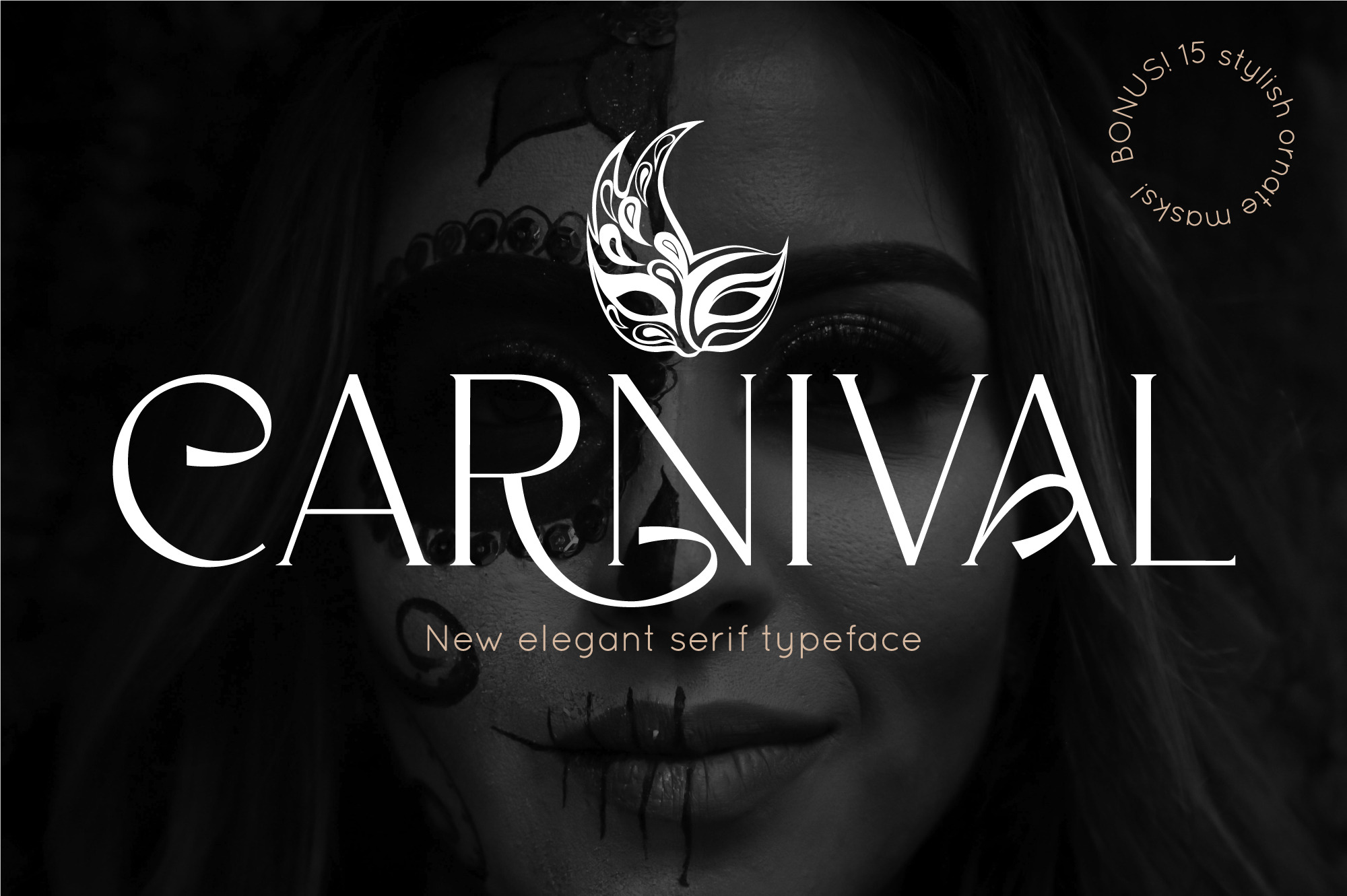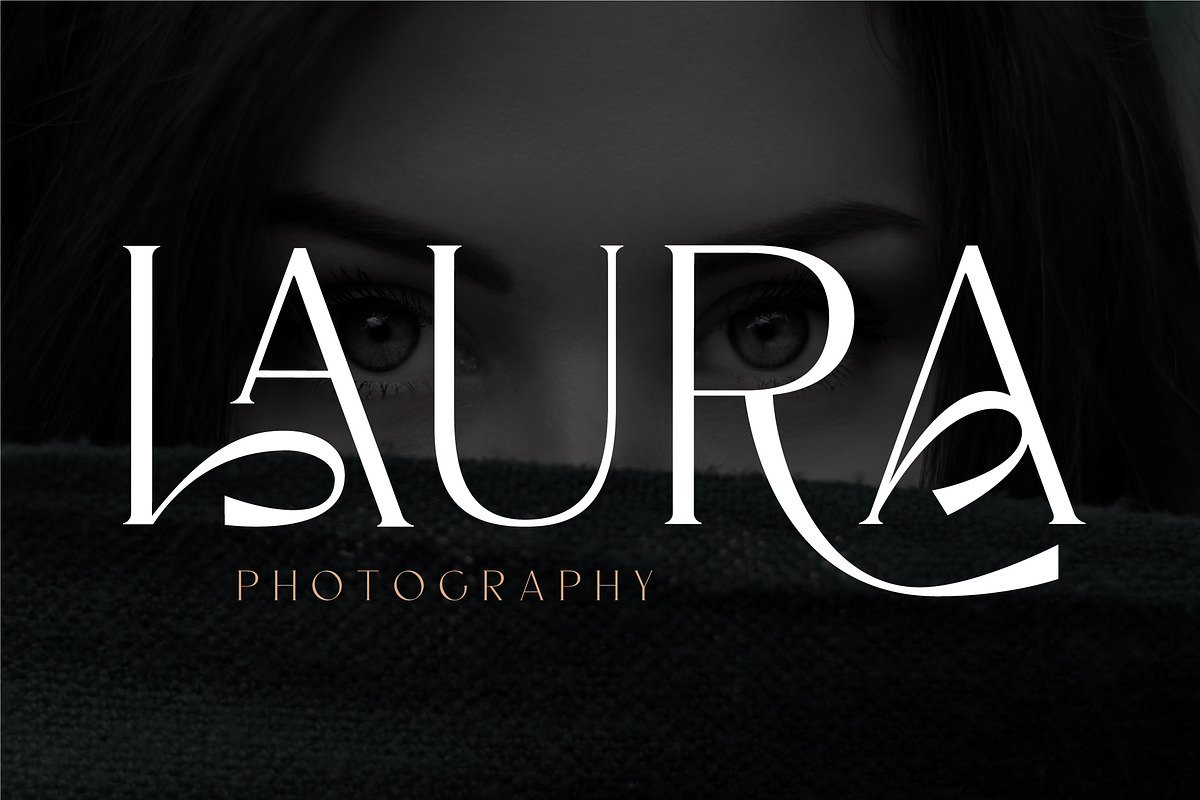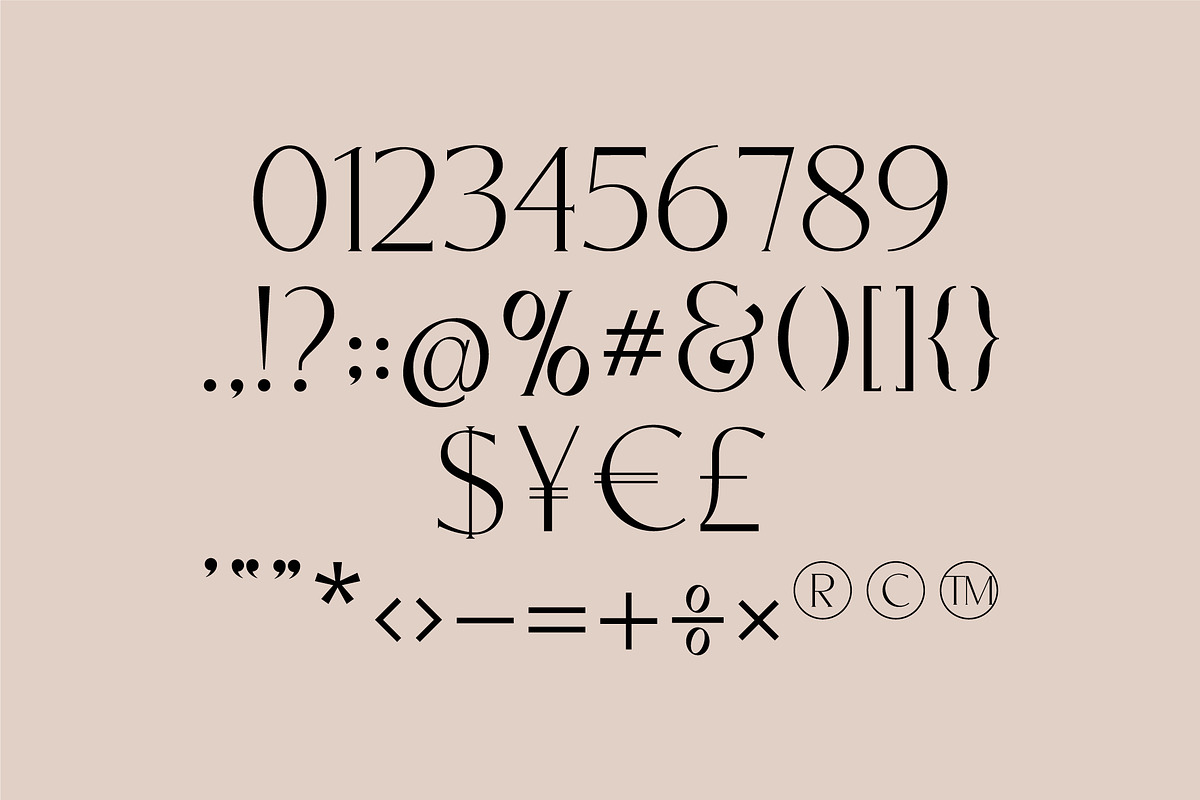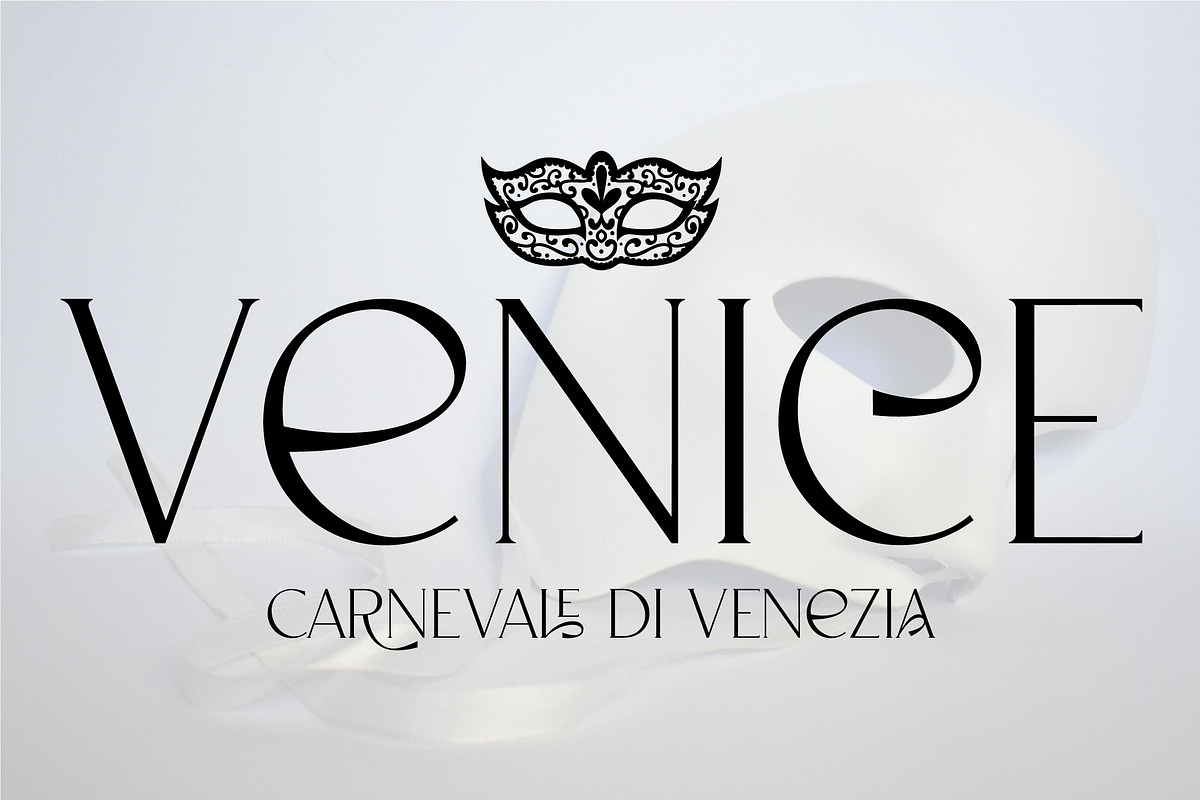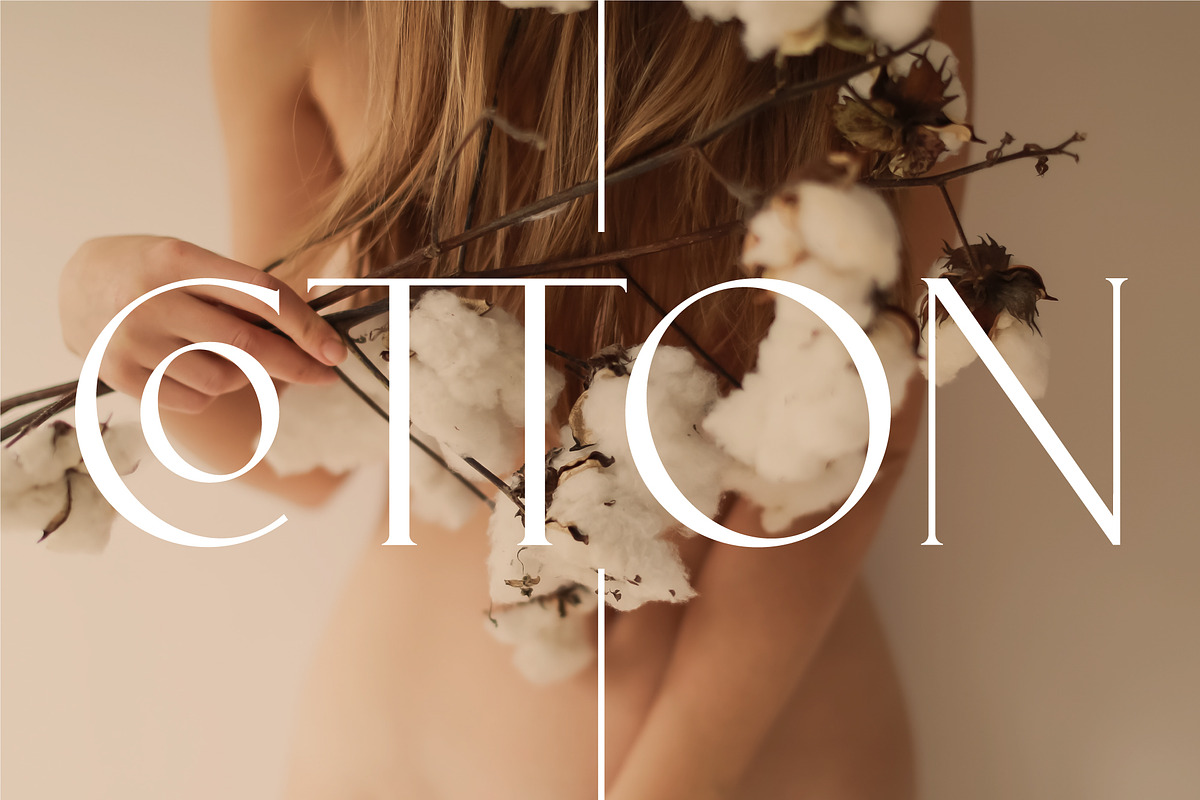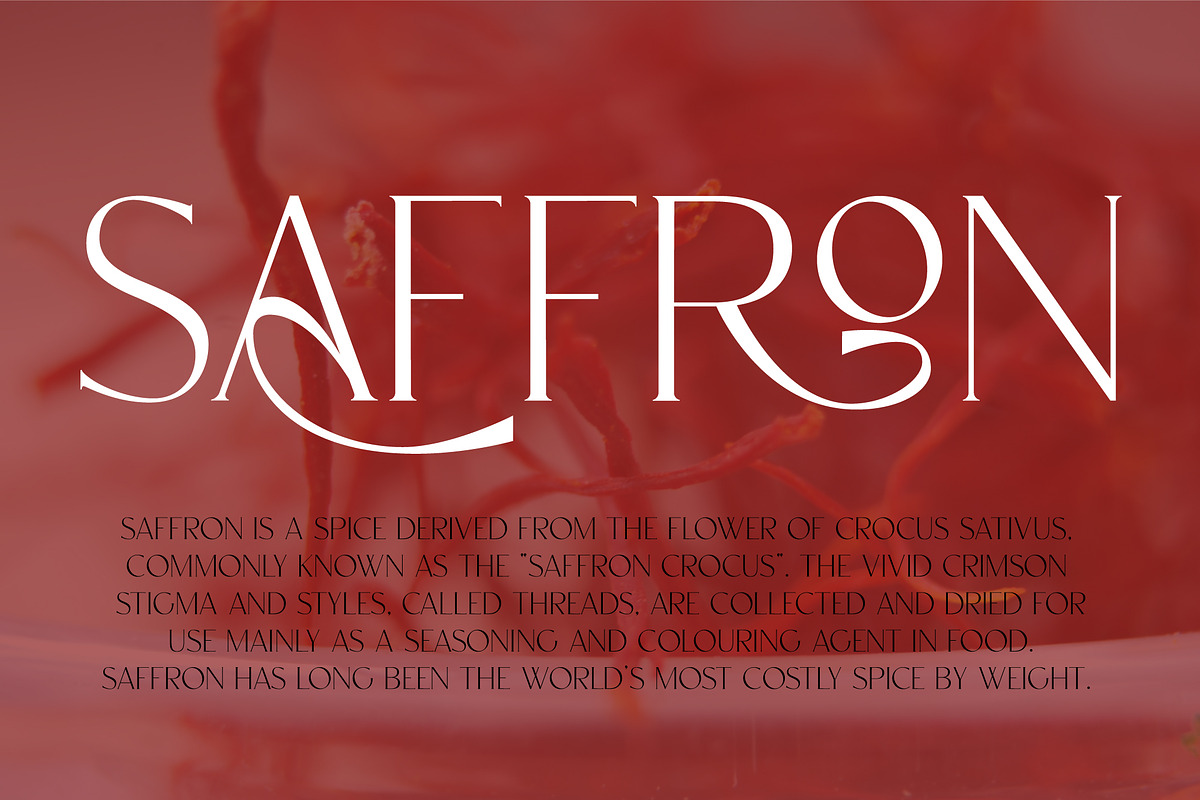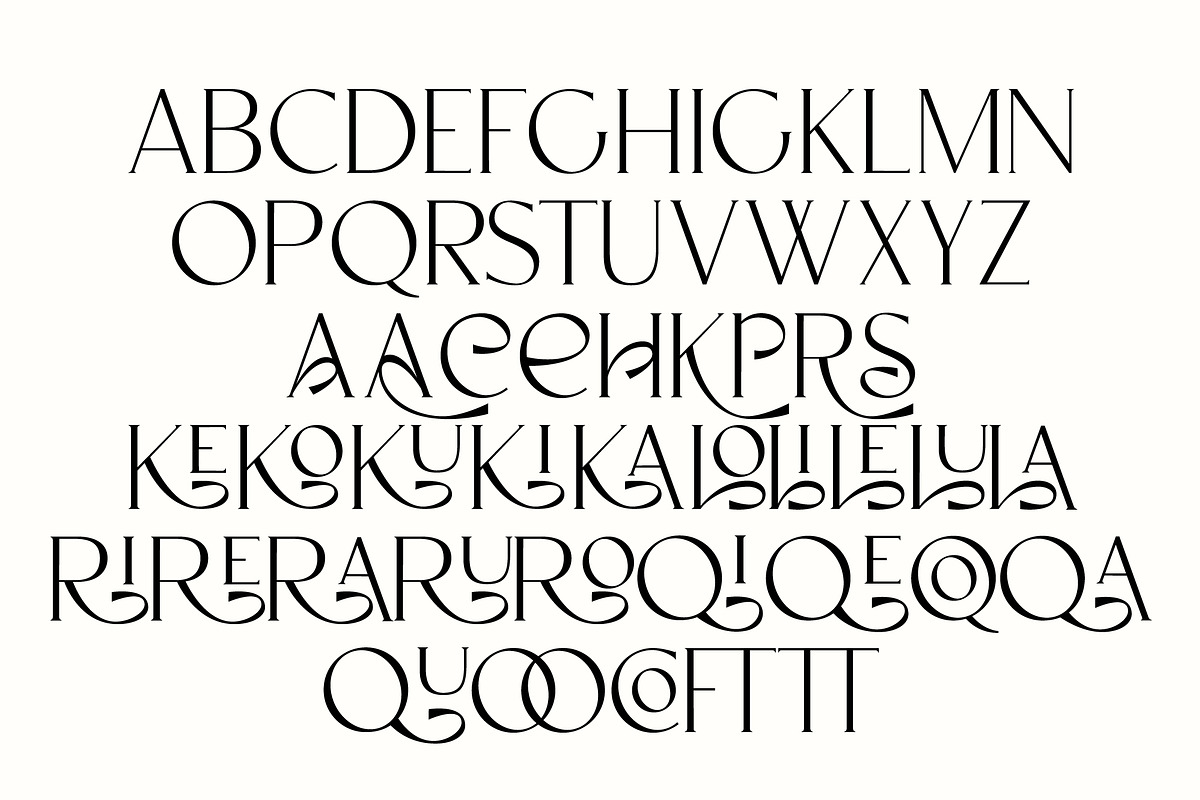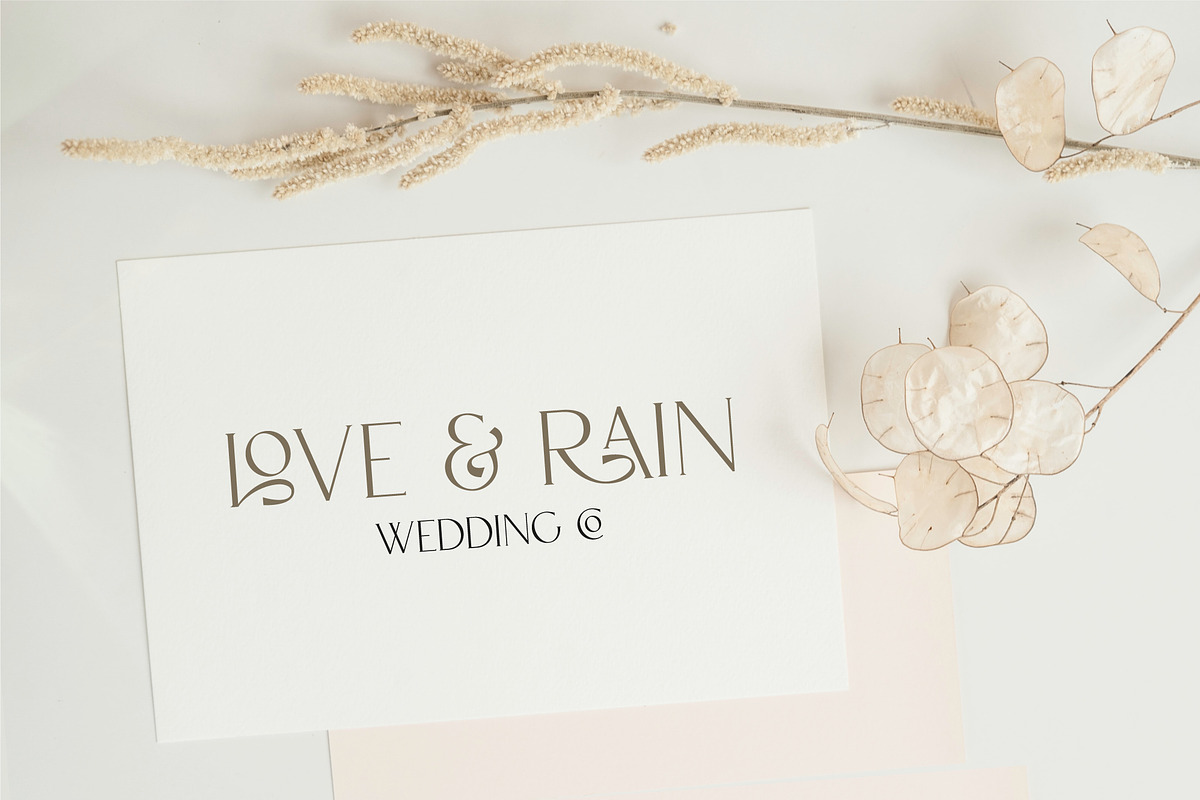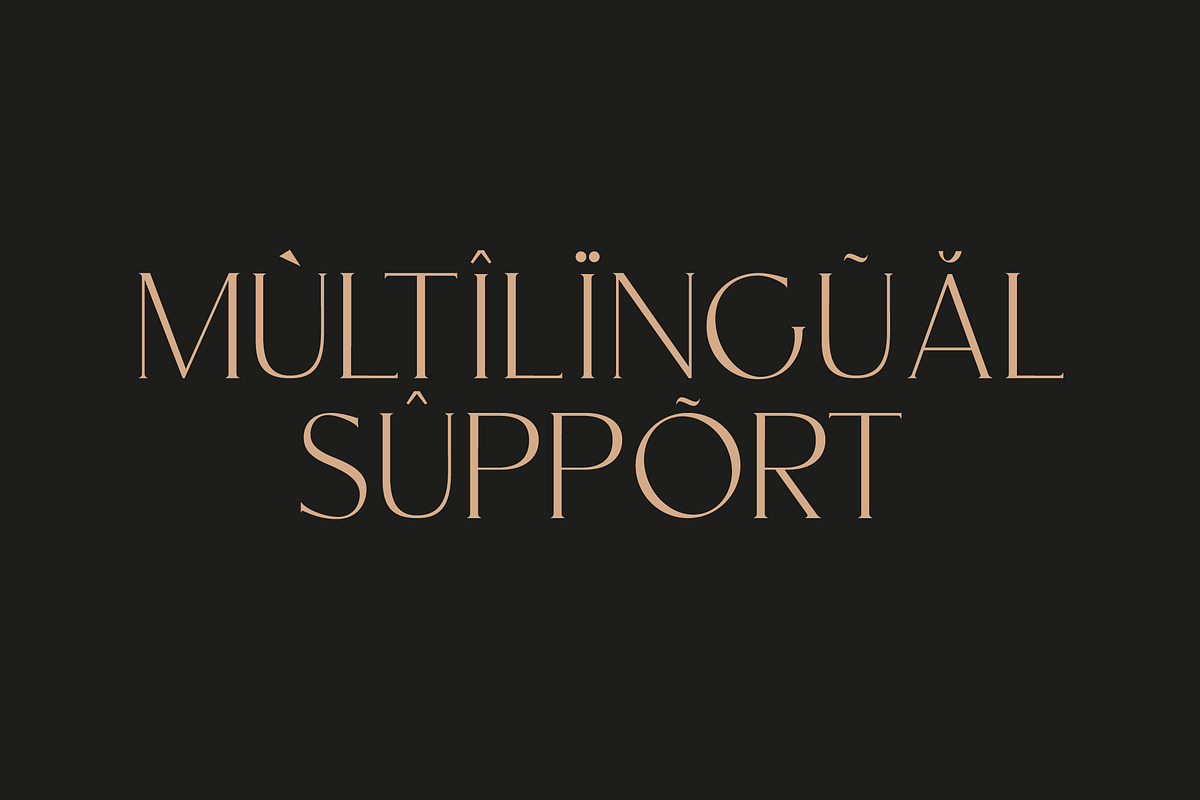
CARNIVAL Elegant Serif Font
Discover my new stylish and elegant serif typeface CARNIVAL with 15 ornate masks as a bonus! Just create stunning logos, apparel design, wedding cards, quotes, display text, carnival invitations and more.
CARNIVAL contains uppercase-only characters, punctuation & numerals, multilingual support (French, German, Italian, Norwegian, Portuguese, Spanish, Swedish, Swiss German).
To make your typography truly unique, CARNIVAL font includes a number of 'Standard Ligatures' (unique double-letter pairings) and 'Stylistic Alternates' (alternative letter designs) to provide you with more customisation options. Make sure these functions are switched on in your software in order to access these characters. All ligatures and alternates can also be accessed via a Glyphs panel.